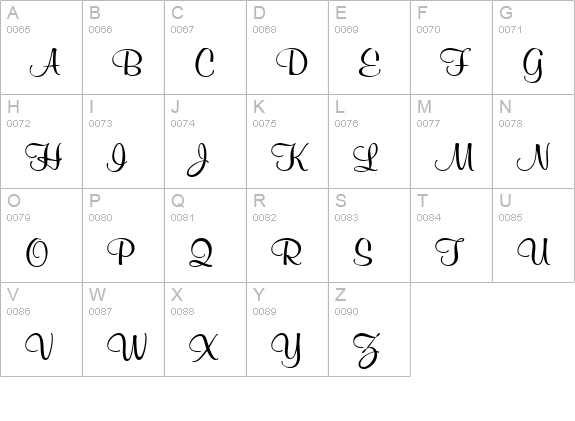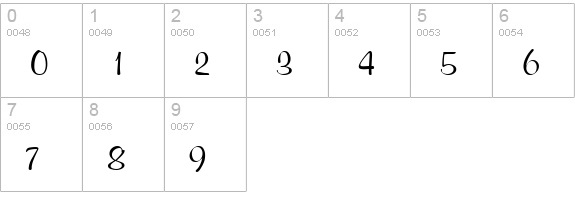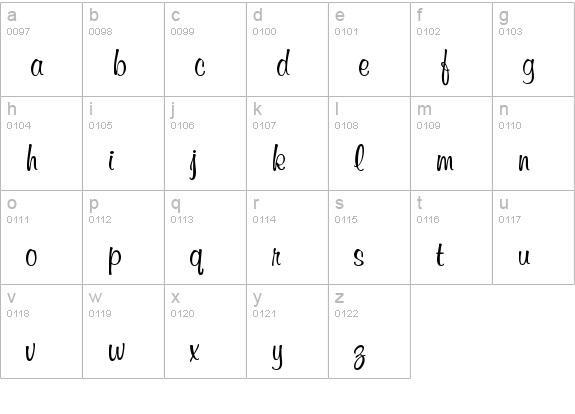
Mural Script Font Details
Mural Script font is a stunning display typeface that exudes elegance and sophistication. Its beautiful cursive style is perfect for adding a touch of charm to your designs. The flowing strokes and intricate details of Mural Script make it ideal for a variety of projects, from invitations to branding to packaging. What's even better is that Mural Script font is completely free to download at FontsMarket.com. Now you can elevate your designs with this exquisite font without any cost. Don't miss out on the opportunity to add Mural Script to your font collection and bring a touch of grace and beauty to your projects. Download it now and let your creativity soar!